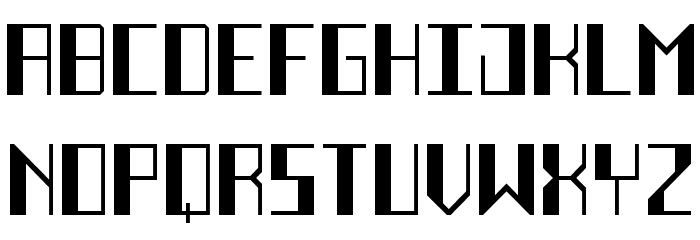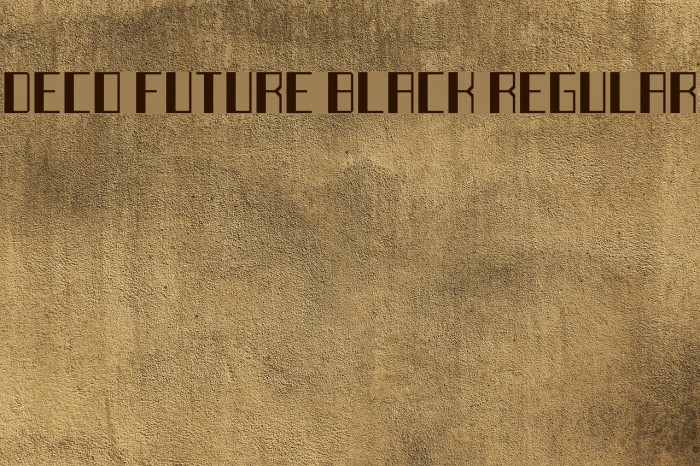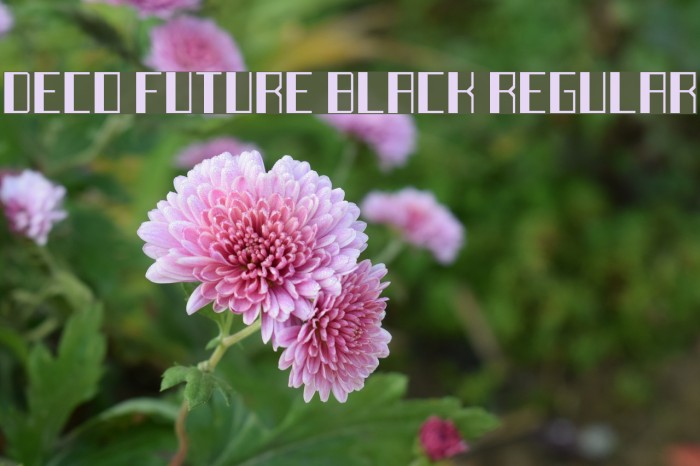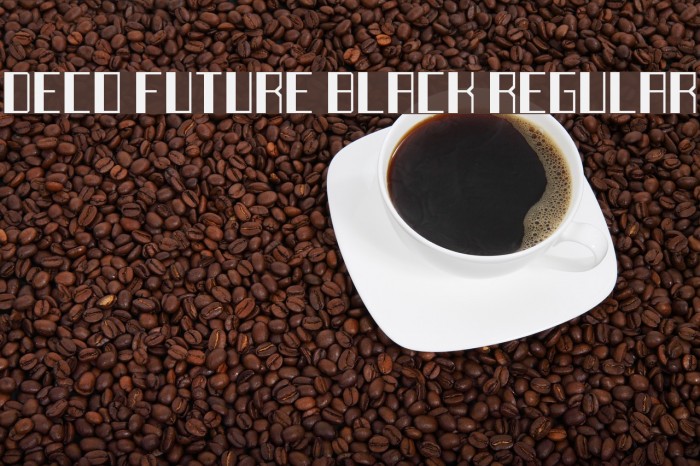
Deco Future Black Regular Font
This font exhibits a bold and futuristic design, characterized by geometric shapes and sharp angles. The uppercase letters are distinct with a strong presence, featuring a consistent height and width that gives a uniform appearance. The lowercase letters maintain the geometric style, offering a seamless transition between uppercase and lowercase. The numerals are clear and easy to read, matching the overall aesthetic of the font. Special characters are designed with the same attention to detail, ensuring they complement the rest of the typeface. The font's modern and sleek look makes it suitable for contemporary design projects.
A bold, geometric font with a futuristic and modern aesthetic.
- Proposed Projects: Ideal for branding, headlines, posters, and any project requiring a modern and bold typeface.